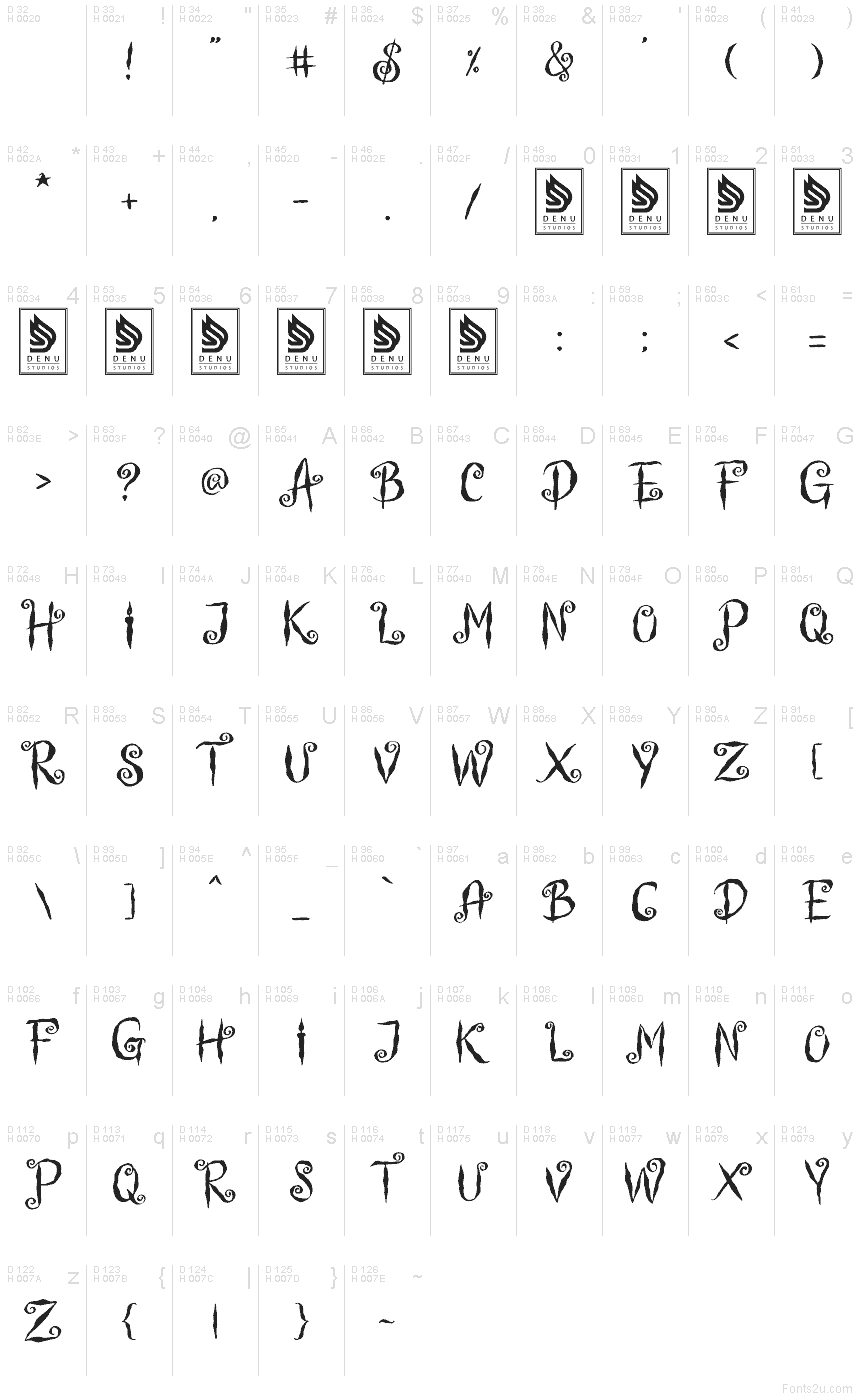
Witch Swirl
Witch Swirl font by Denustudios is a free curly Halloween display font. Its defining trick is the inky spiral curls that bud from thin, twiggy strokes—like smoke curling off a candle. The letters lean and flicker with a hand-scrawled wobble, giving headlines a playful creepiness without turning unreadable.
Using Witch Swirl, headlines snap to attention on party invitations, trick-or-treat posters, haunted house signage, social banners, stickers, and seasonal packaging. This free font shines when set large with a touch of extra letter spacing. Pair it with a clean sans for body copy to keep the magic legible and the swirls center stage.